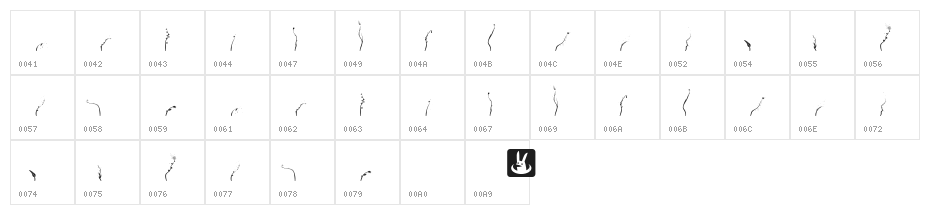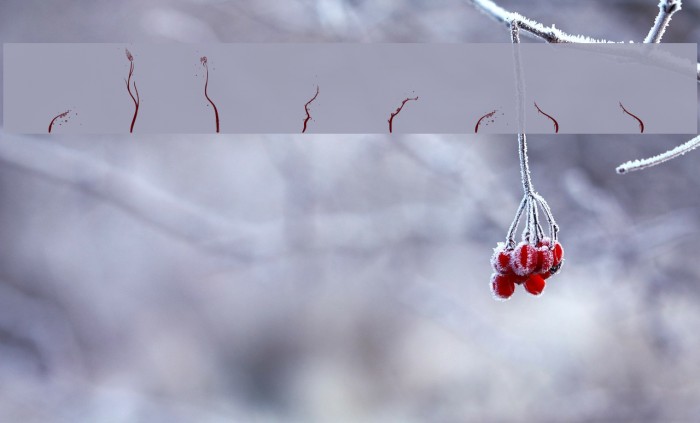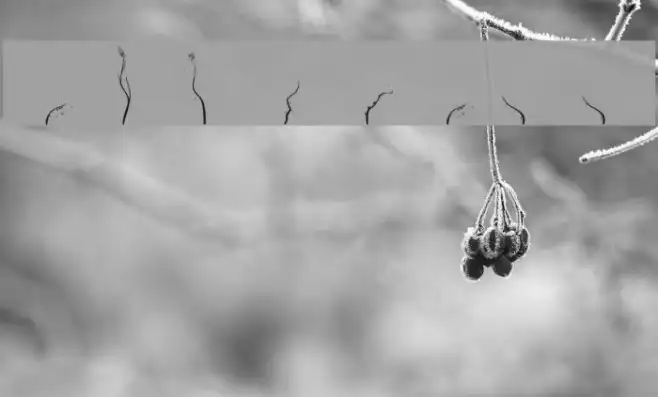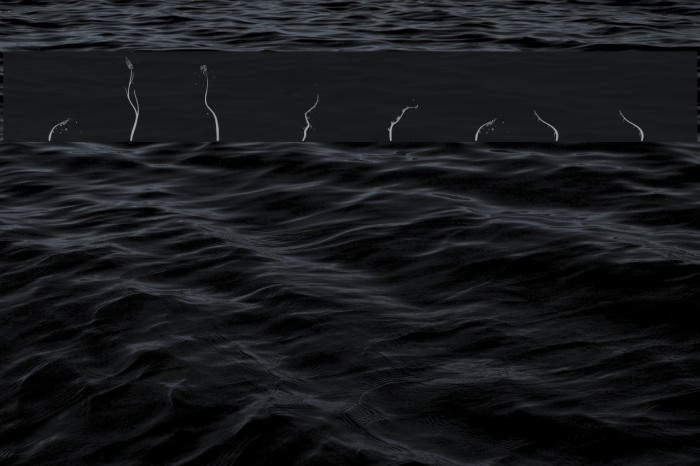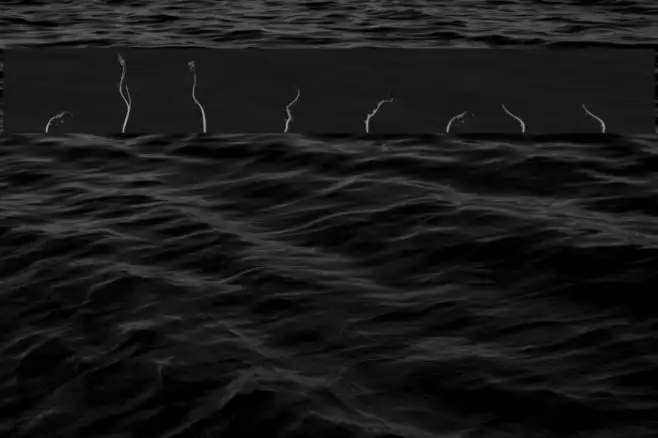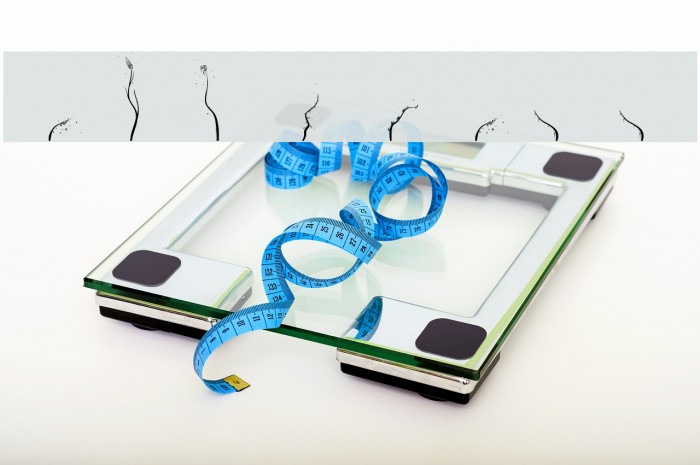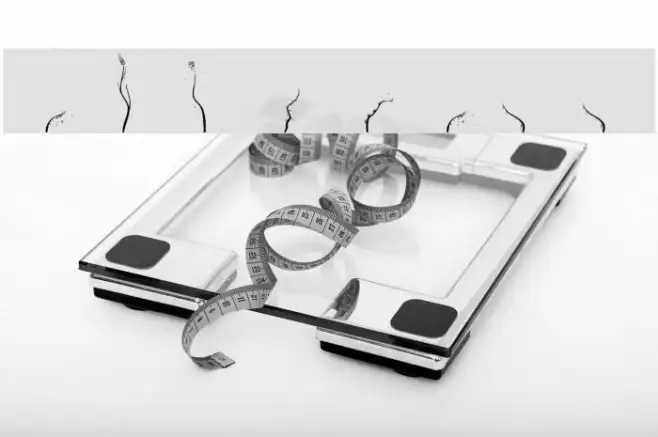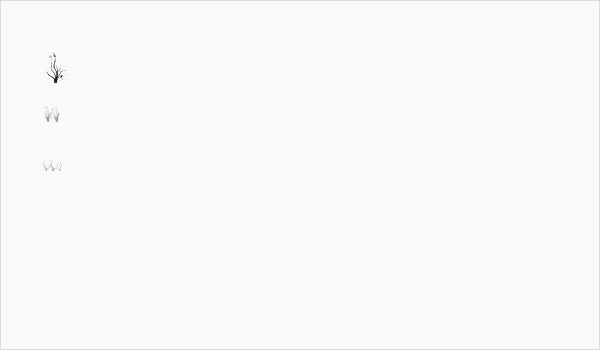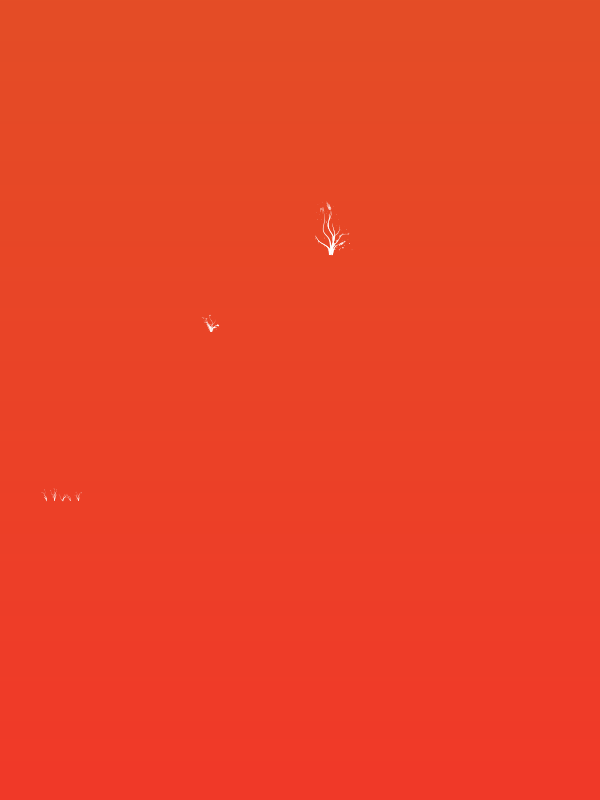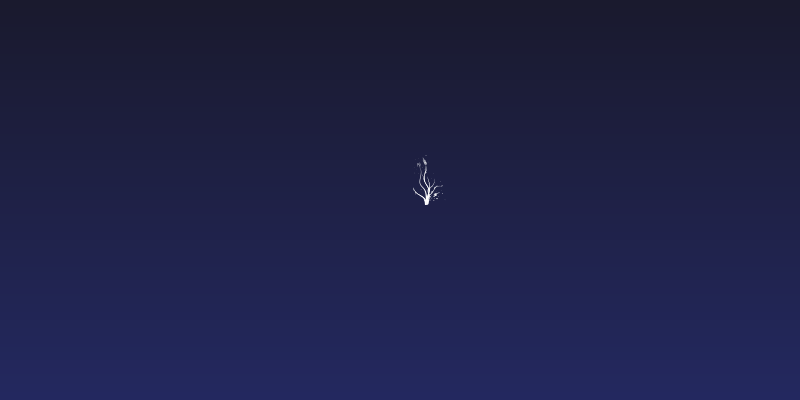
Aierbazzi Font
Aierbazzi Description
This font features an abstract and artistic design, with each character resembling a unique, flowing line or brushstroke. The strokes are thin and delicate, often incorporating small dots or splatters that add to the artistic flair. The overall appearance is highly decorative and unconventional, making it stand out as a piece of art rather than a traditional typeface. The characters are not easily distinguishable, emphasizing form over function, and are likely intended for artistic or decorative purposes rather than readability.
Use CaseArtistic designs, decorative elements.
Proposed ProjectsIdeal for artistic projects, abstract art pieces, or decorative elements in graphic design where readability is not the primary concern.